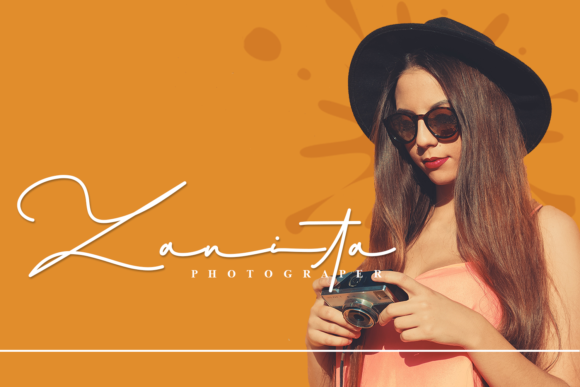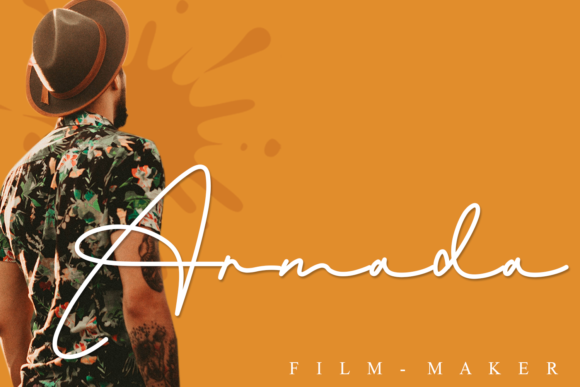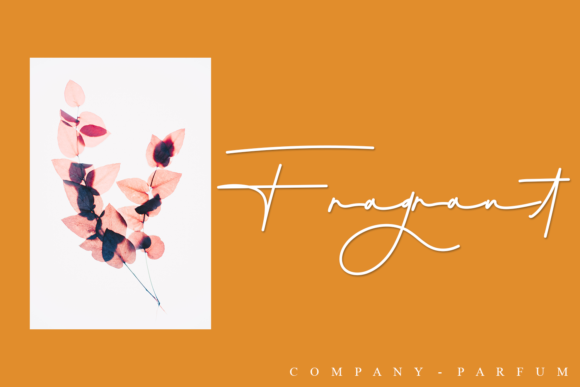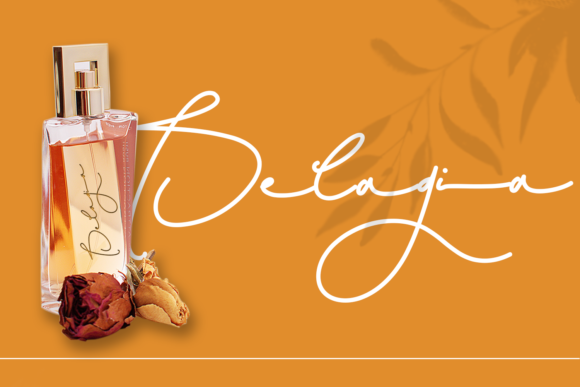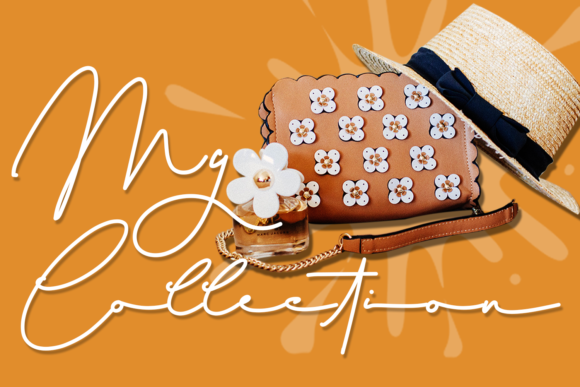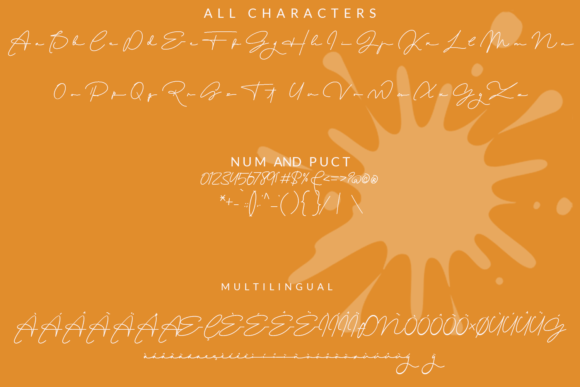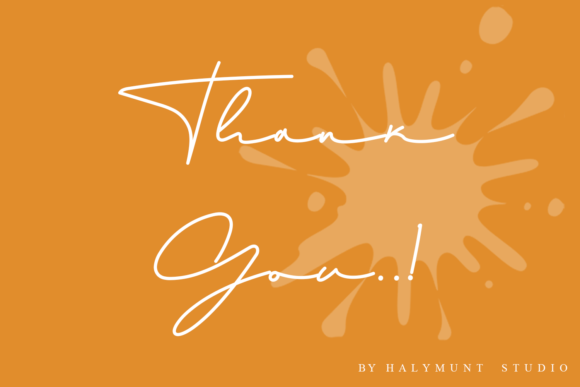
Romalin Heart Font
About Romalin Heart Font
Romalin Heart is inspired by the Italian countryside and delivers an equally classy and authentic font experience.